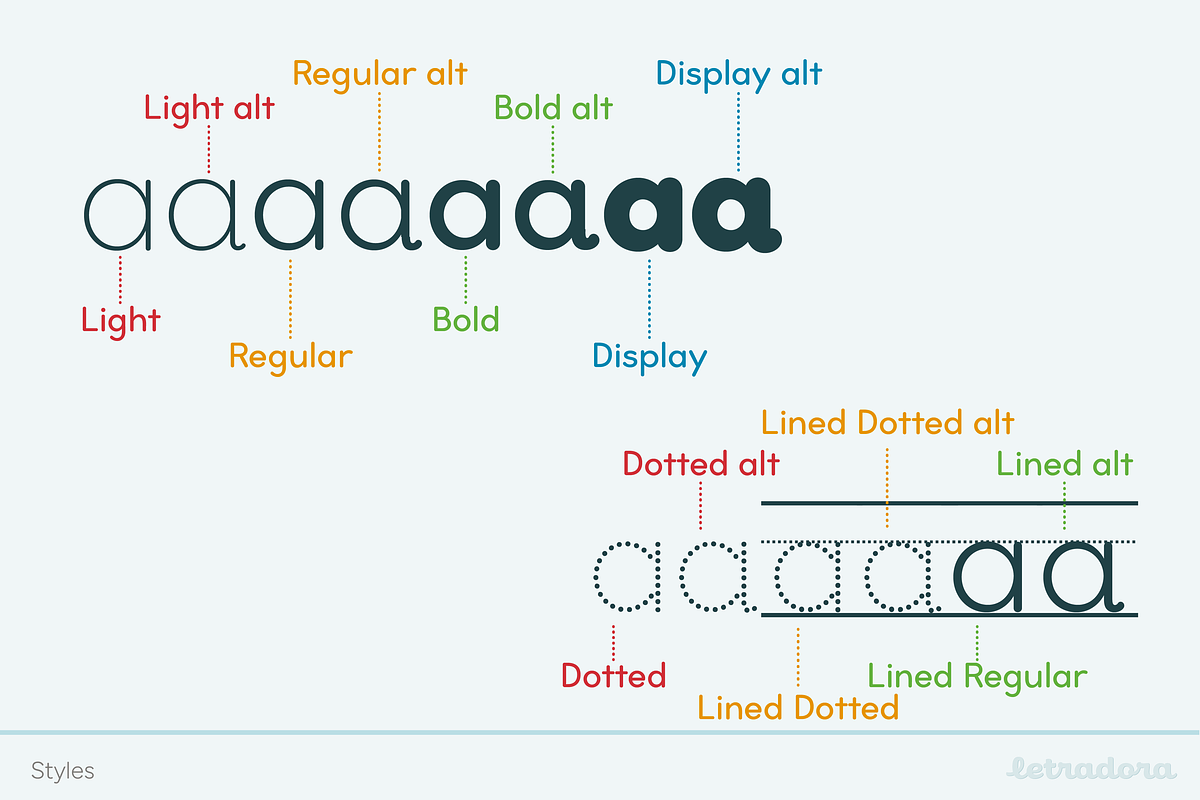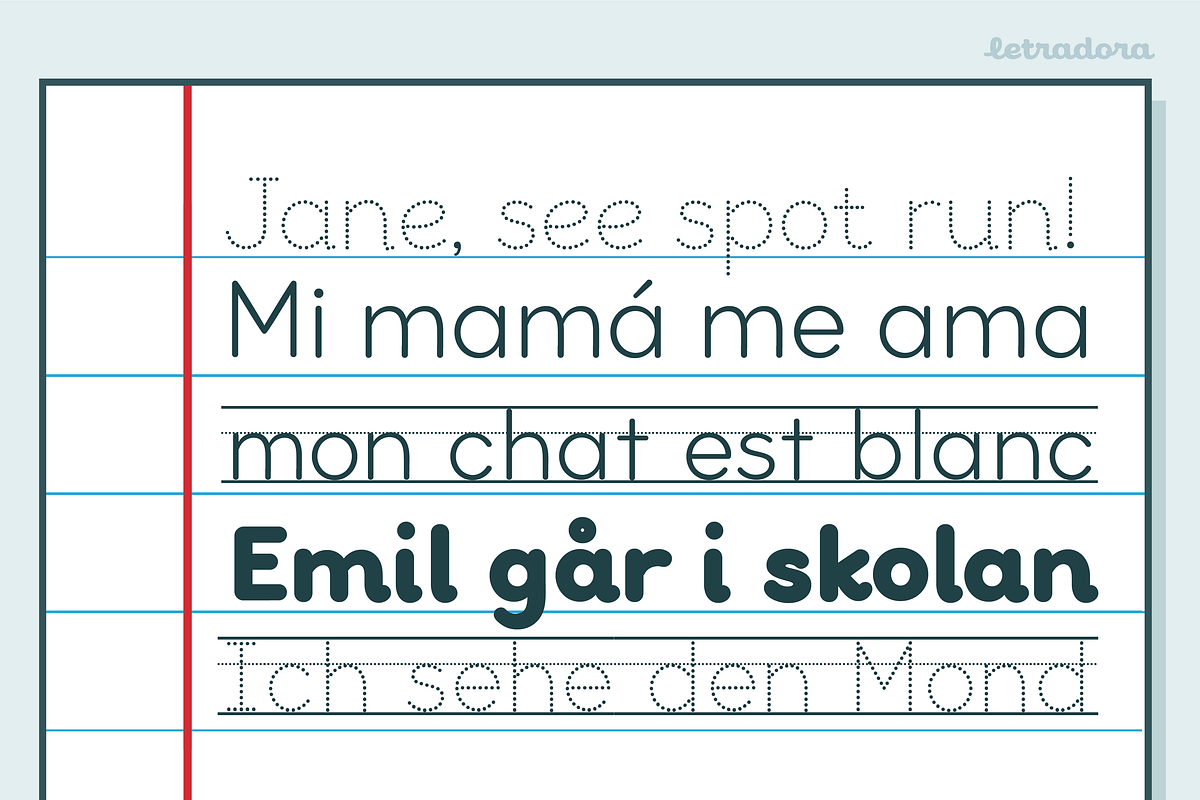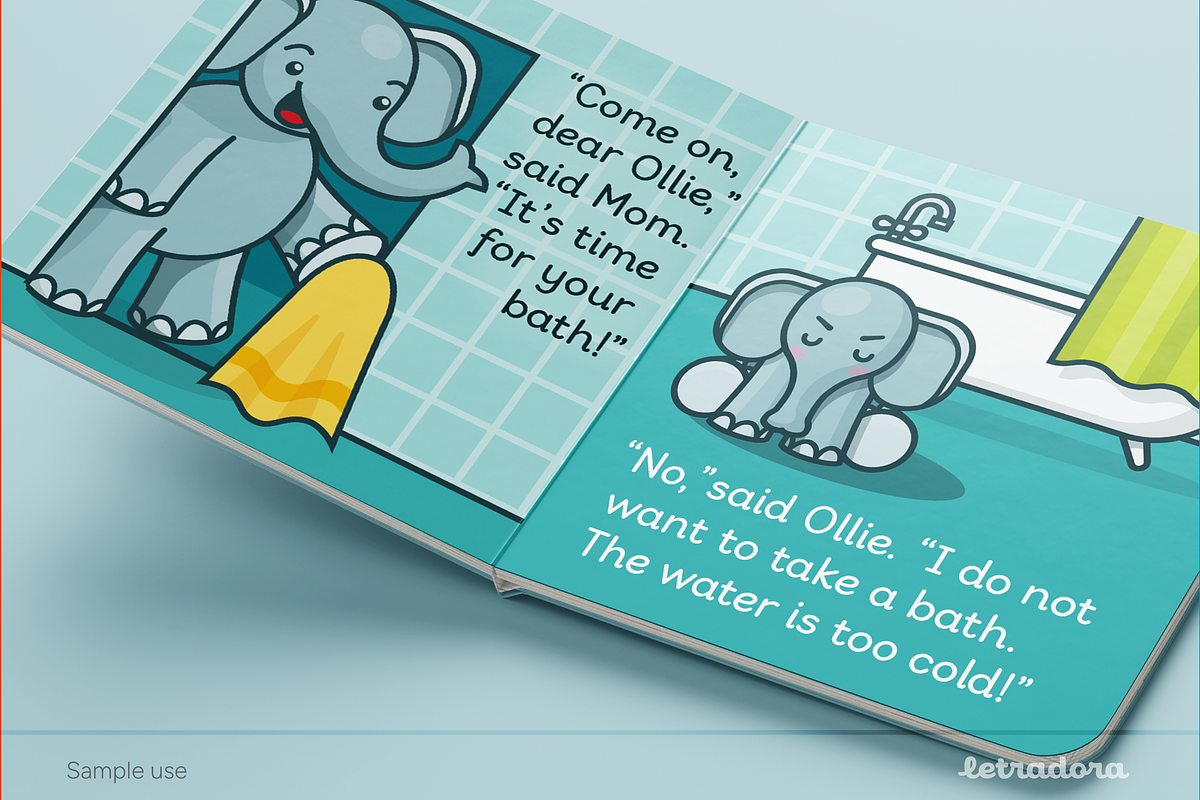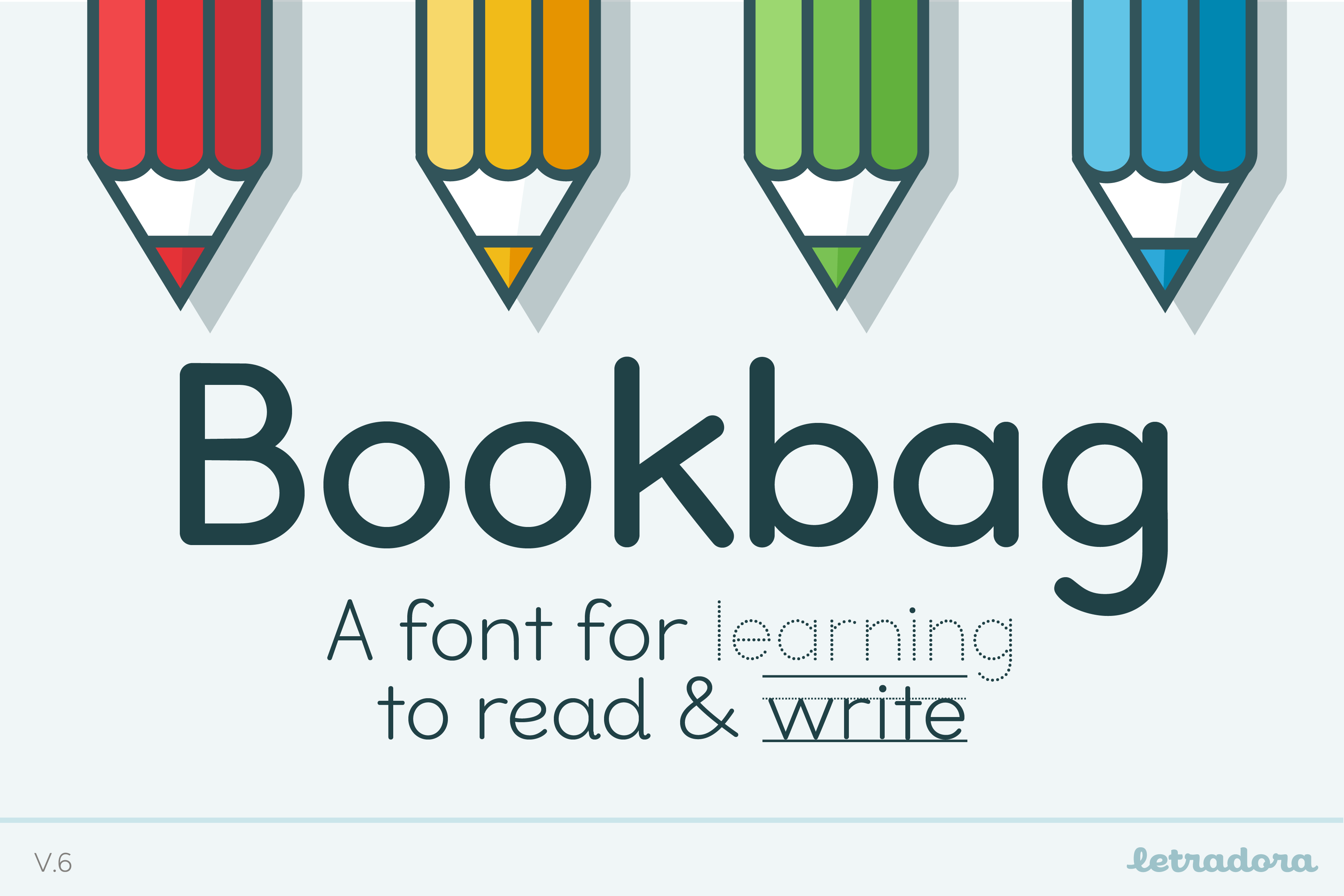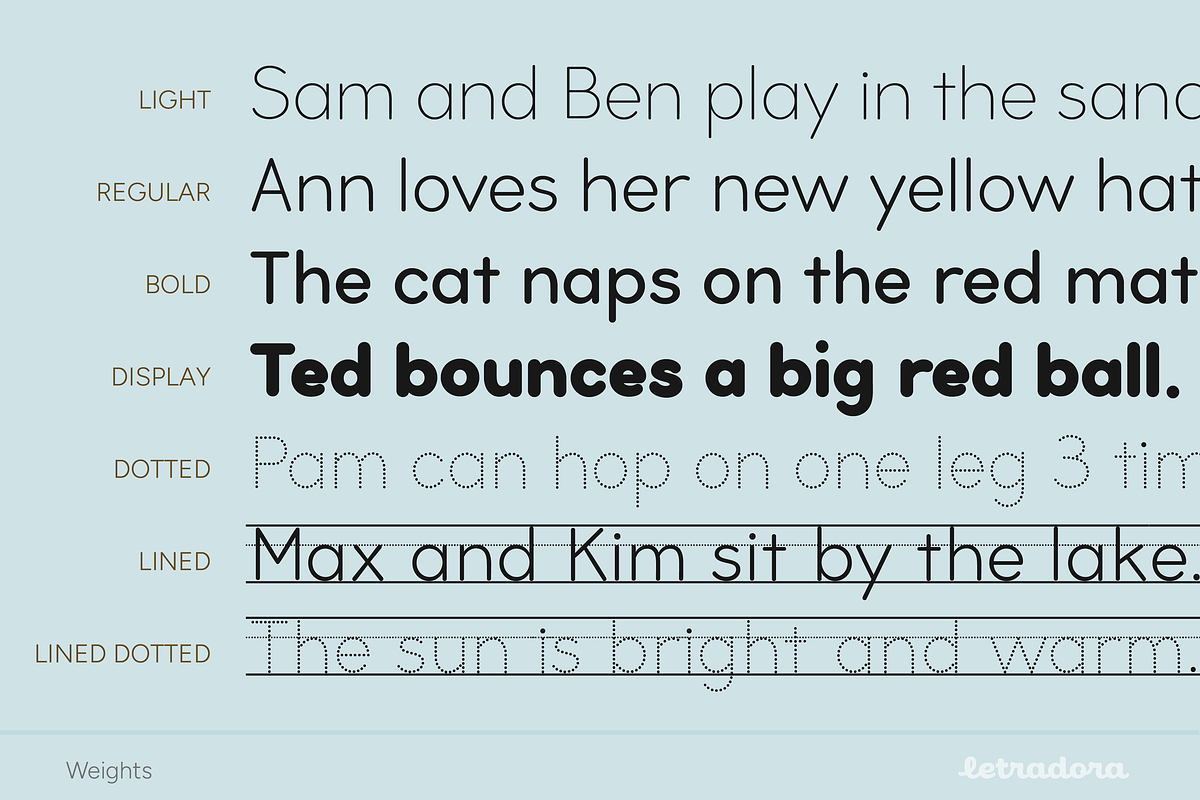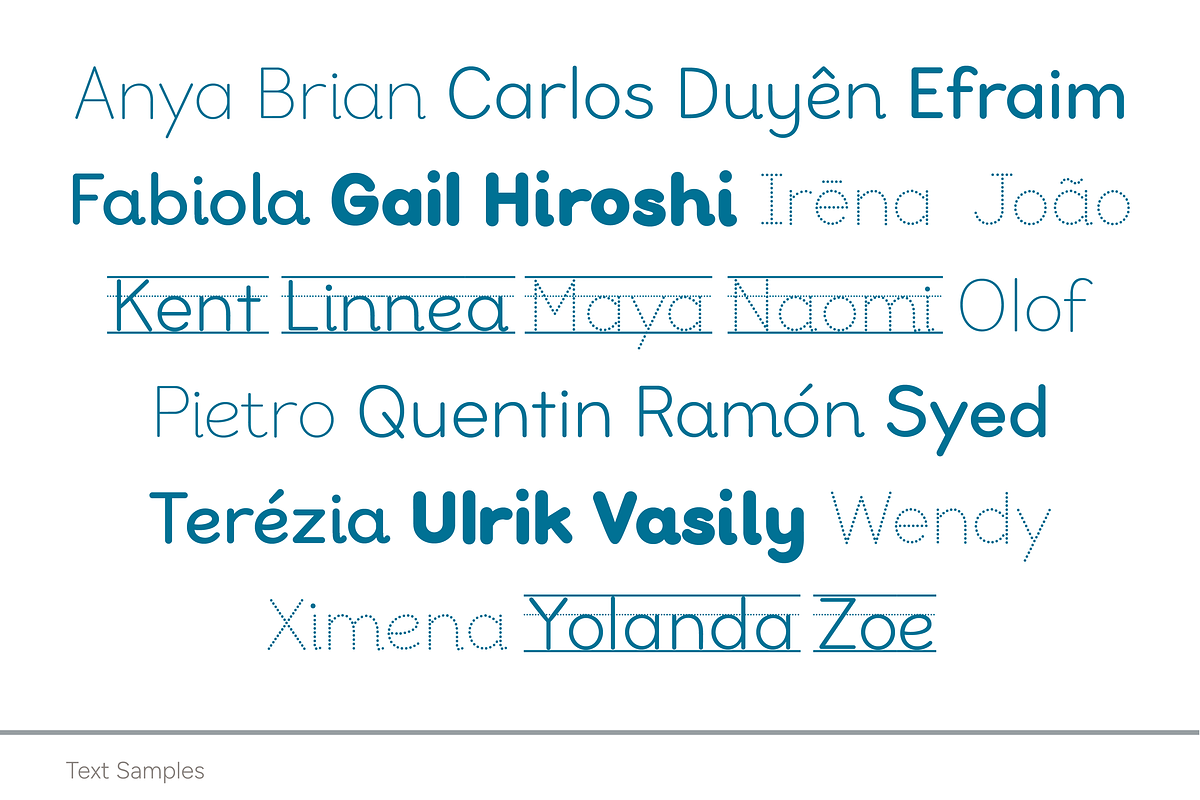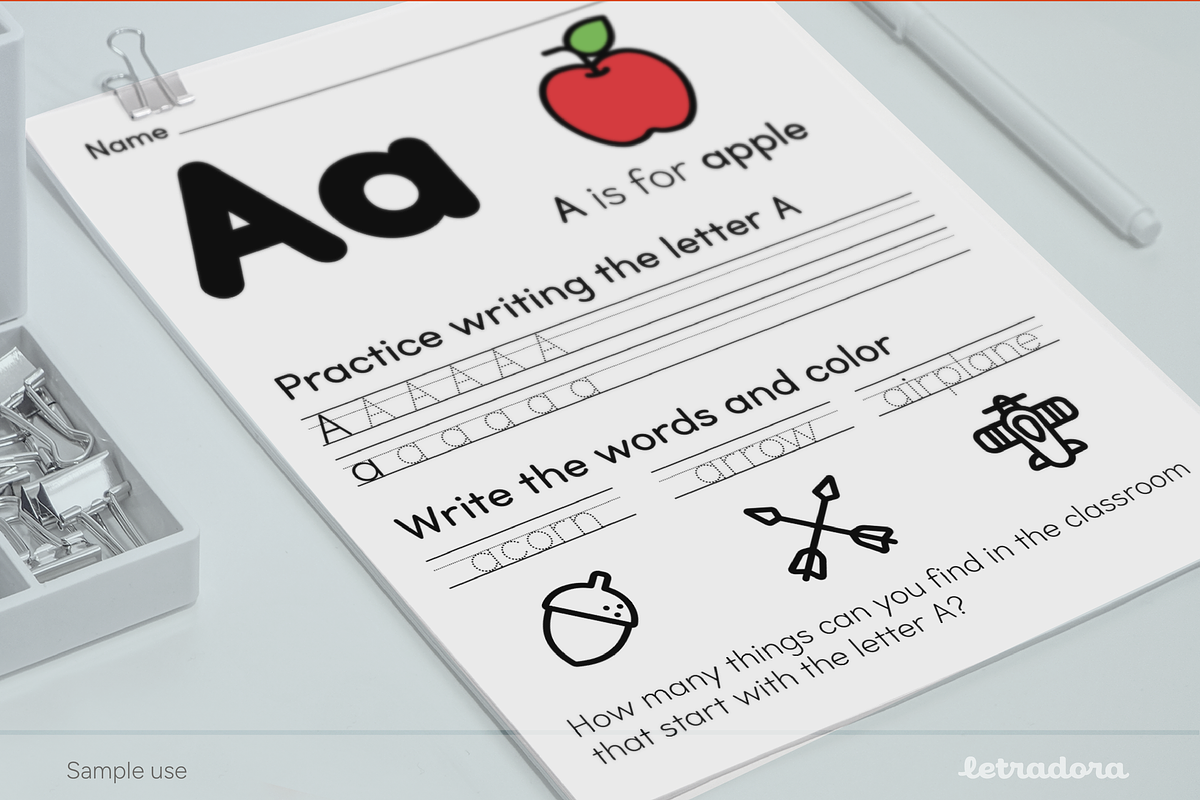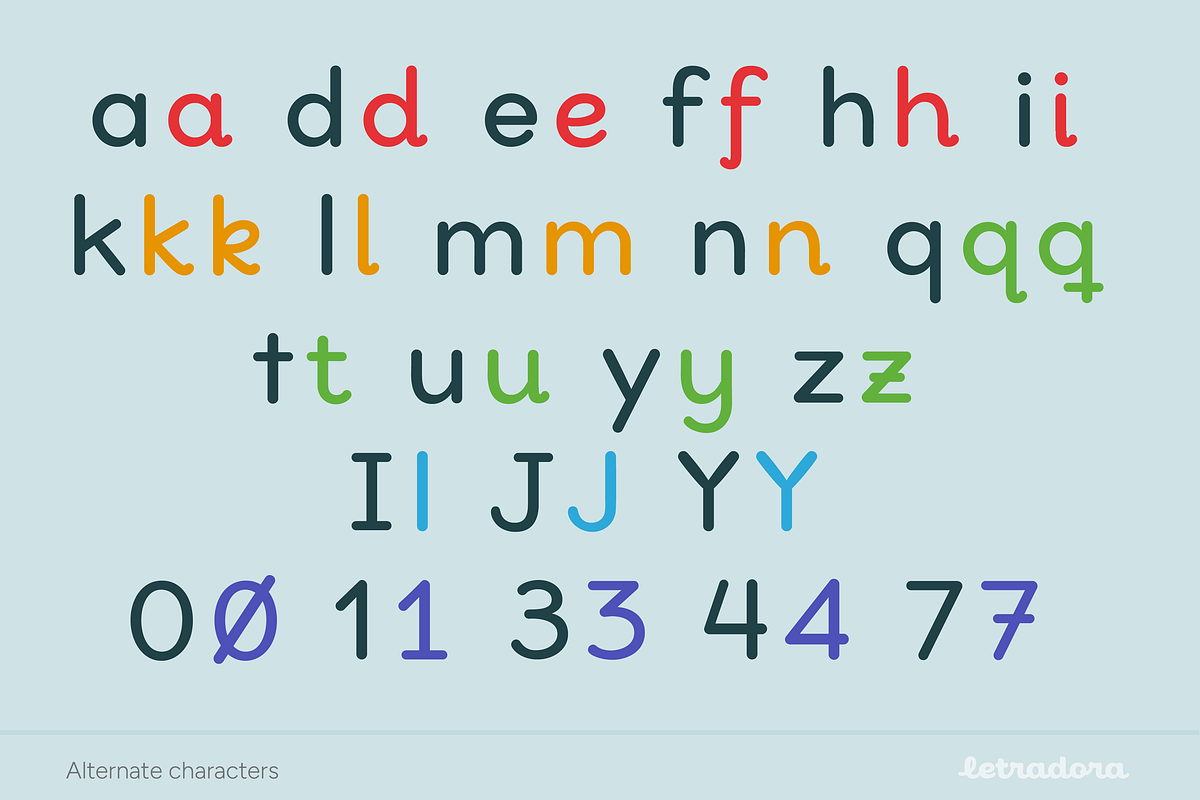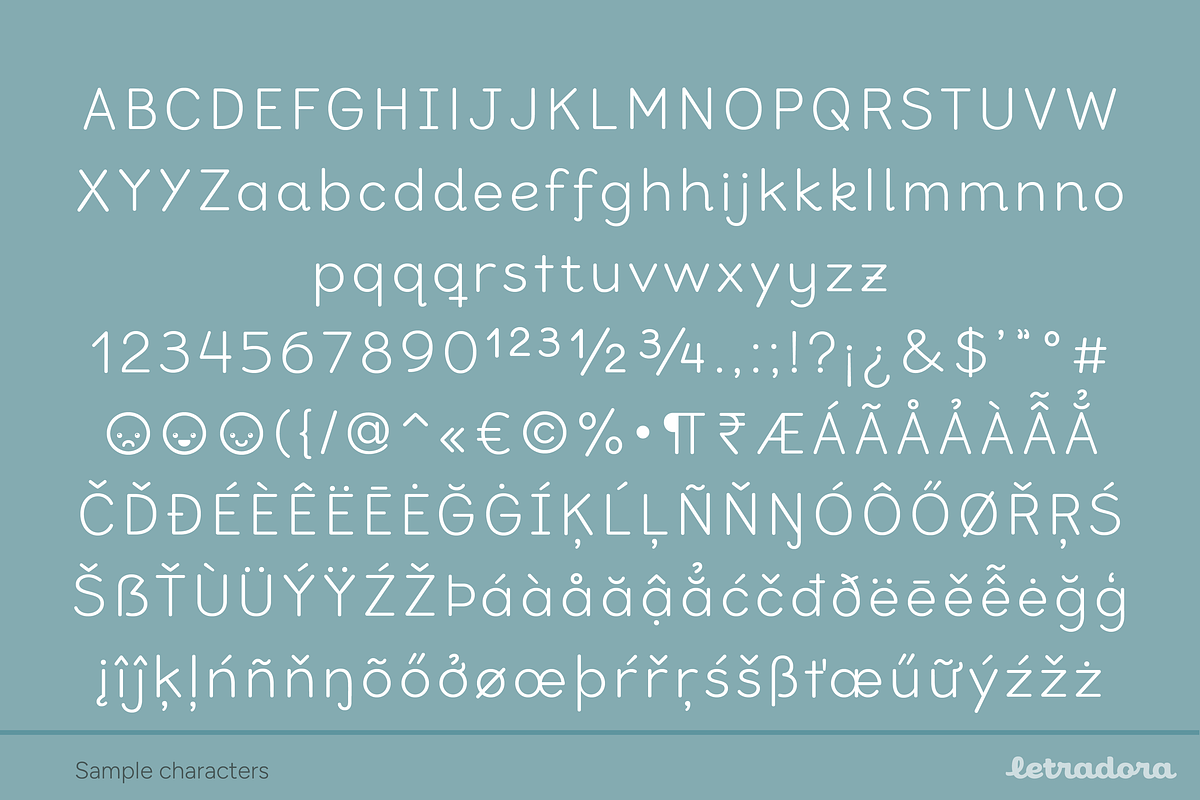
Bookbag School Font
Bookbag is a type family designed to help children learn to read and write. Its clear, friendly letterforms are carefully differentiated to support early reading, while remaining natural and approachable for handwriting practice.
The family includes four weights from Light to ExtraBold, as well as dotted and lined versions for tracing and writing exercises. Multiple alternate glyphs support different teaching methods and handwriting conventions, accessible via OpenType stylistic alternates or dedicated Alt styles. Bookbag offers broad Latin language support, making it suitable for multilingual classrooms and educational materials.